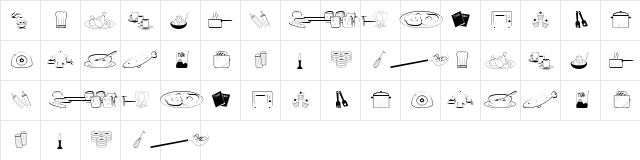
Cooking Set Regular Font Preview
Cooking Set Regular
Cooking Set Regular Font Details
| Foundry | dcoxy Medina Gregory |
| Designer | dcoxy Medina Gregory |
Design Context for Cooking Set Typeface
Cooking Set is a composed and adaptable typeface that performs quietly and consistently across a wide range of design contexts.